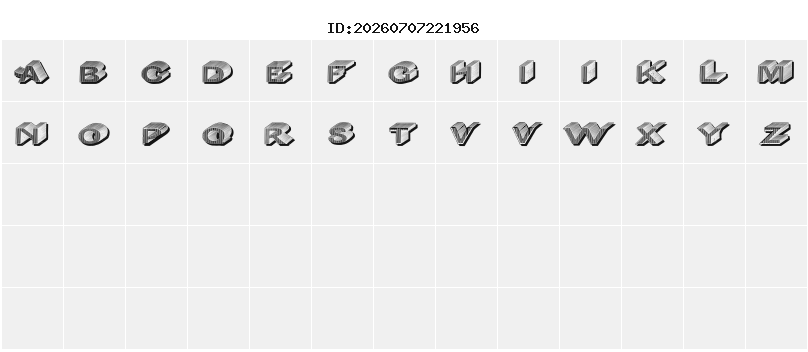
• Font Name: DasRiese Shadow
• Font ID: PauloW: DasRiese Shadow: 2011
• Full Font Name: DasRiese Shadow
• Version: Version 1.000 2011 initial release
• PostScript Name: DasRieseShadow
• Character Count: 27
• Manufacturer: Paulo W
About DasRiese Shadow.ttf
DasRiese Shadow.ttf is a modern, elegant sans-serif font designed for ultimate readability and visual harmony. Perfect for branding, headlines, web design, and print materials.